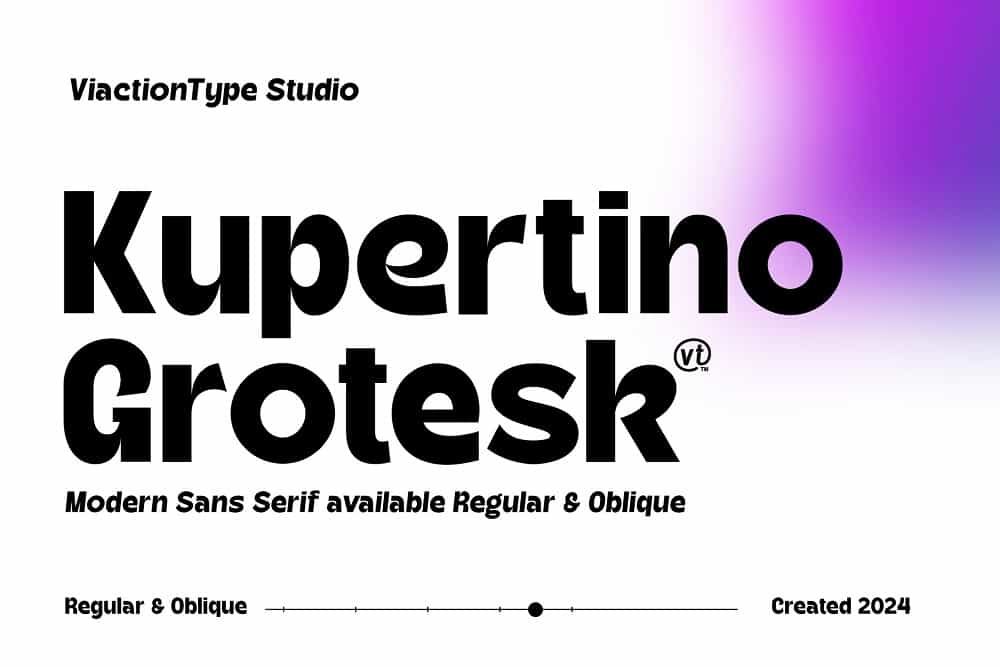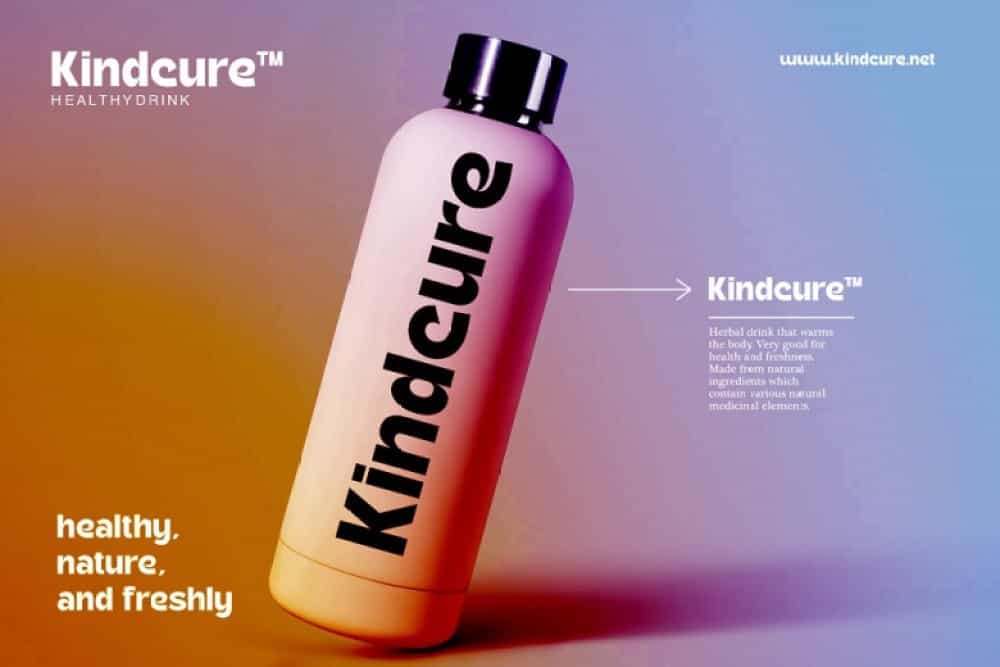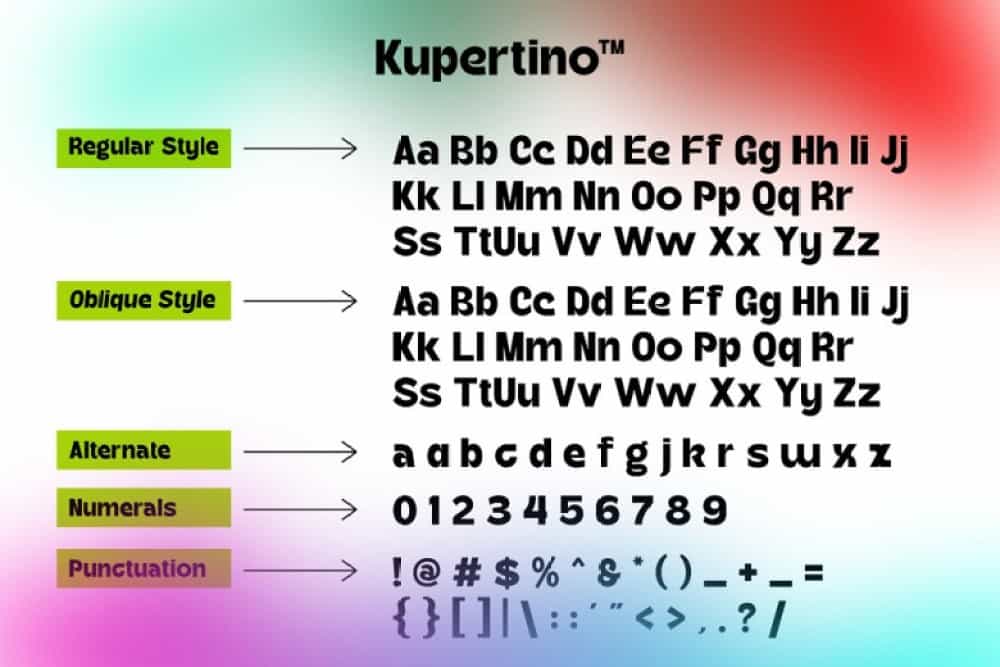
Kupertino Grotesk is a contemporary font style that is a sans-serif typeface that has been designed for maximizing the legibility. There are two styles that are provided in this font style and they are the regular and the oblique styles and this makes the Kupertino Grotesk font suitable for use in most design projects.